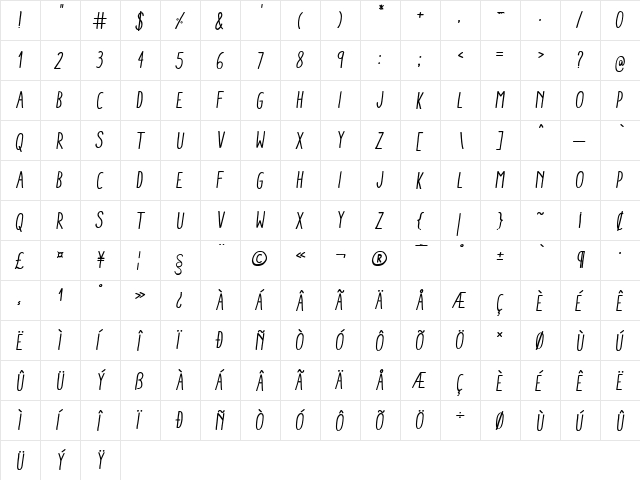
Aracne Condensed Regular Italic Condensed Regular Font Preview
| Designer | Julia Martinez Diana, Antipixel |
Design Context for Aracne Condensed Regular Italic Typeface
Aracne Condensed Regular Italic offers clean, dependable letterforms without strong stylistic allegiance, making it a practical choice for designers who need flexibility. The dynamic lean of this cut emphasises speed and emphasis in any layout. Its narrow stance lets it pack a punch even in space-constrained designs.
Pro Tip: Try Aracne Condensed Regular Italic for annotation and caption copy alongside an upright companion — the contrast in angle creates a dynamic but ordered typographic system.